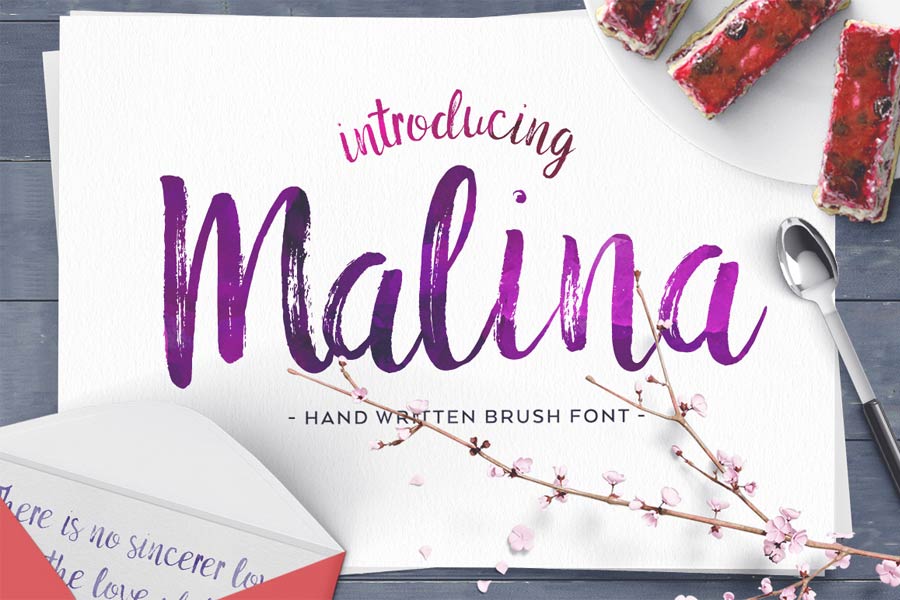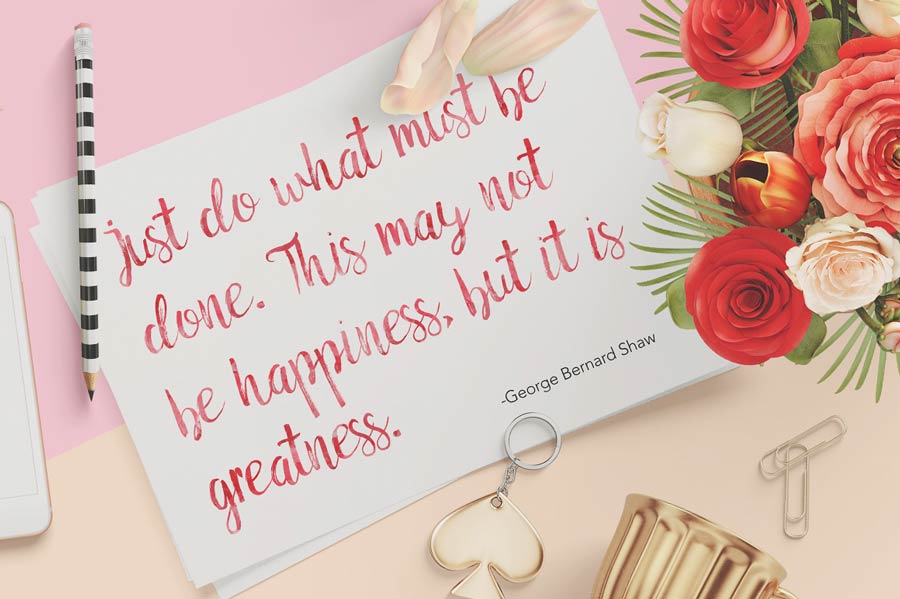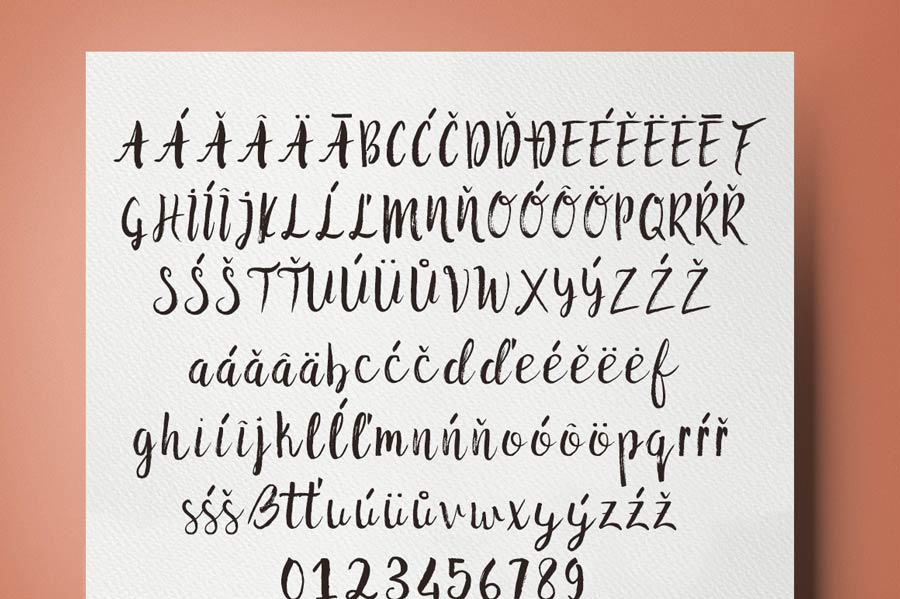
This week’s free goodies from Creative Market features good looking Malina Brush Font. It’s a hand brushed font with dry ink brush. Malina supports multi languages and is ideal for restaurant menus, greeting cards, invitations, weddings and many more. The font contains 155 characters and the download file comes with both TTF True Type and OTF Open Type Format.
- Designer: Ivan Rosenberg